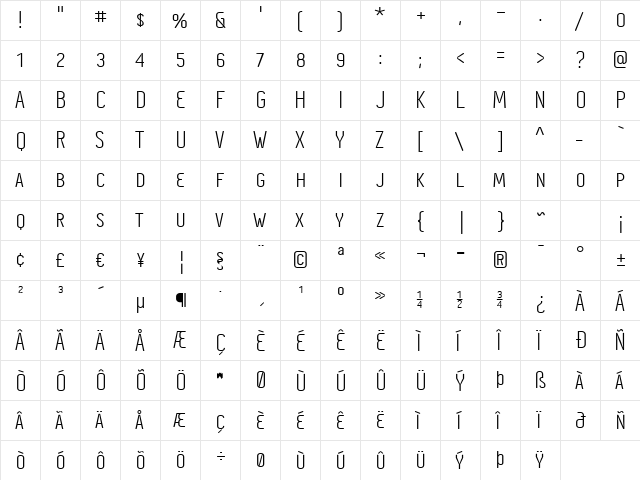
Cynapse Pro SC Regular
Design Context for Cynapse Pro SC Typeface
Cynapse Pro SC takes a measured approach to typography — its balanced proportions and neutral character make it a reliable workhorse for both digital and print work.